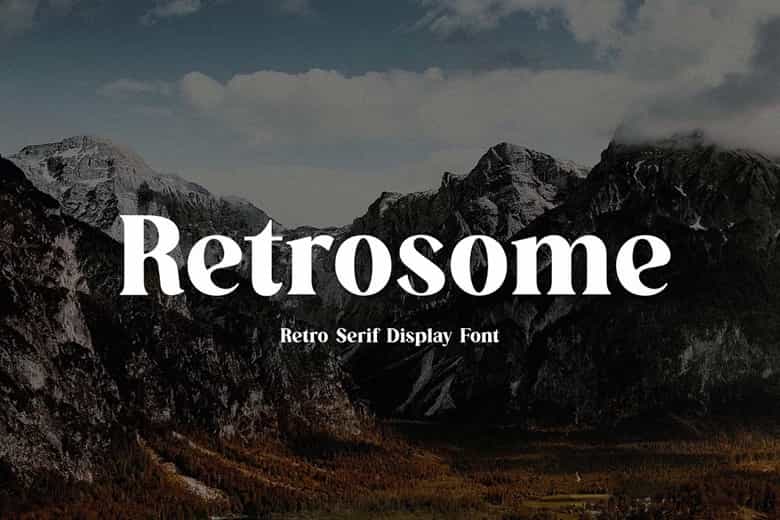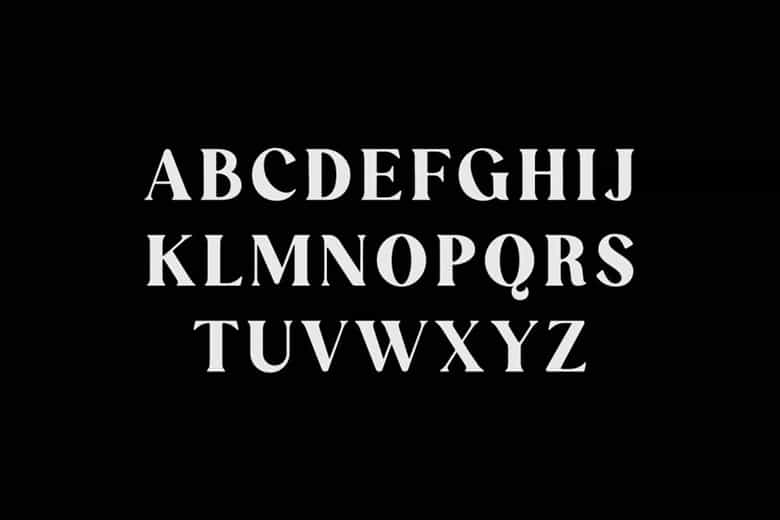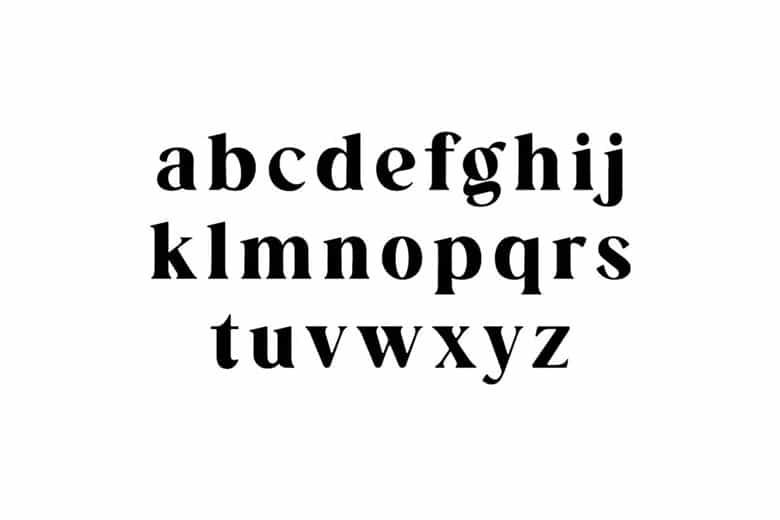
Retrosome is a new retro display serif font that will give your designs that much needed vintage feel. This font is perfect for any kind of design, from signatures and business cards, to logos, weddings, quotes, magazine or book covers, headers for websites, branding and all sorts of other projects.